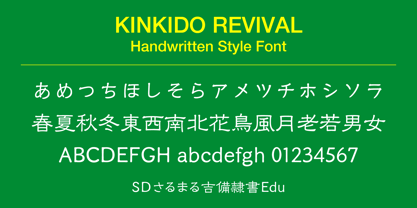
SDSarumaru Kibireisho Edu
The SDSarumaru Kibireisho Edu Font Family was designed by and published by Kinkido. SDSarumaru Kibireisho Edu contains 1 styles. More about this family
It is handwritten in block letters. The 1026 kanji characters learned in elementary school can be used.
KINKIDO REVIVAL is a project to revive custom-made fonts created between 1997 and 2000. Handwritten Style Fonts are based on the basic styles of calligraphy: regular script, semi-cursive script, and cursive script. Lettering Style Fonts are based on Edo-period Japanese characters, modern design characters, and contemporary corporate characters. Font names ending with “Edu” are limited editions with approximately 1,000 Chinese characters, while those ending with “Bas” have approximately 3,000 Chinese characters.